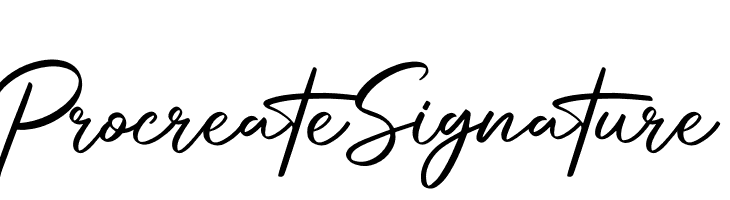
A playful, italicized handwritten font with smooth, flowing curves.
Outlined comic speech and thought bubbles in diverse shapes.
A bold, playful font with a bubble-like, three-dimensional appearance.
تحظى HarmonyOS Sans Naskh Arabic Medium, LT Asus Light, Starduster Halftone Italic, OctoberMoon and Robo-Clone Italic بشعبية لخطوطها النظيفة وتطبيقاتها الواسعة — من الهوية البصرية إلى الصفحات المقصودة والملصقات.